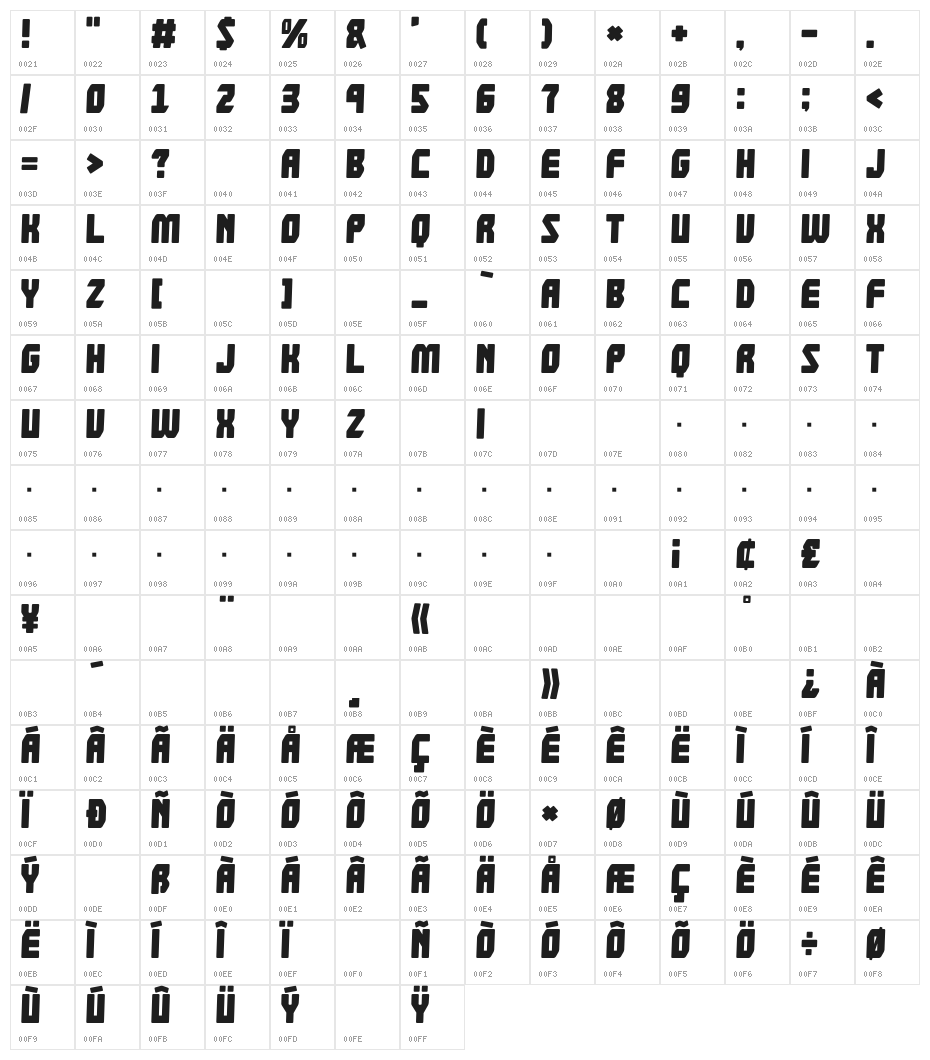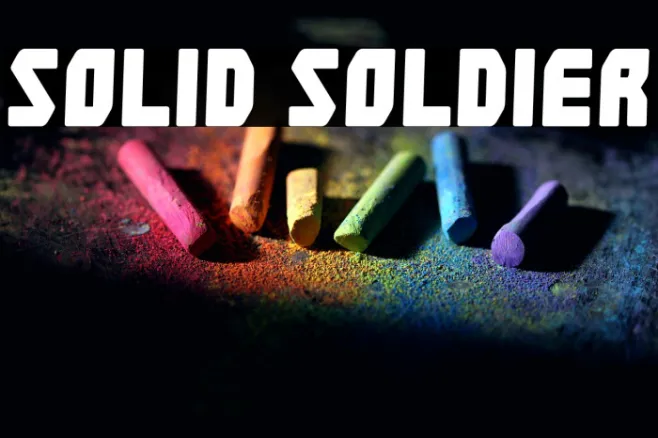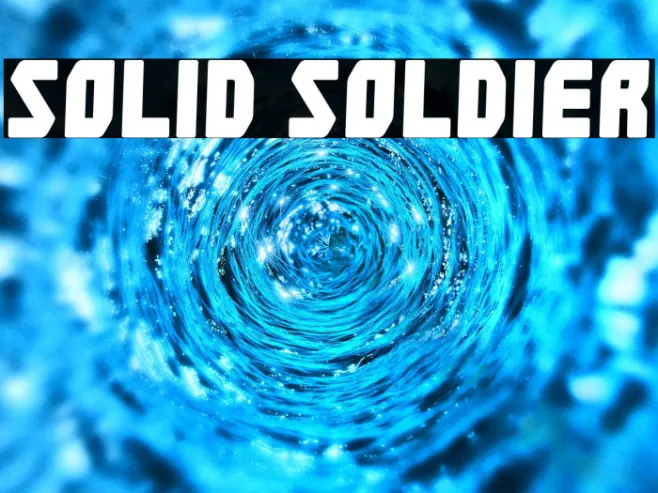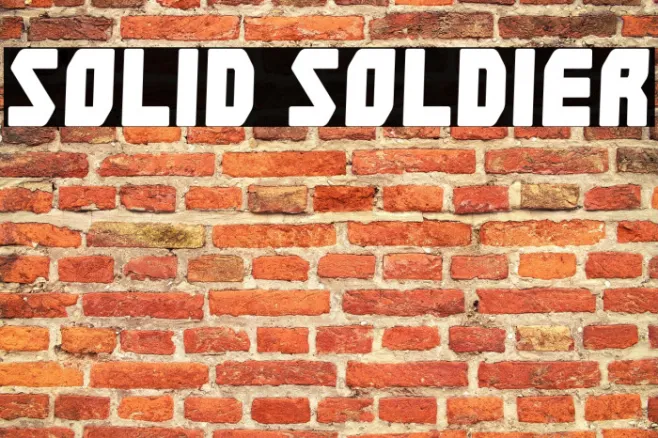
Solid Soldier Font
Solid Soldier Description
This font features a bold and robust design with a distinctly modern and industrial feel. The characters are blocky and angular, giving them a strong presence on the page. The uppercase letters are uniformly wide, while the lowercase letters maintain a consistent height, ensuring readability. The numbers and special characters follow the same bold style, making them stand out effectively. The font's geometric shapes and thick strokes convey a sense of strength and stability, suitable for impactful designs.
| Proposed Projects | Ideal for use in branding, posters, headlines, and any design requiring a strong, impactful typeface. |